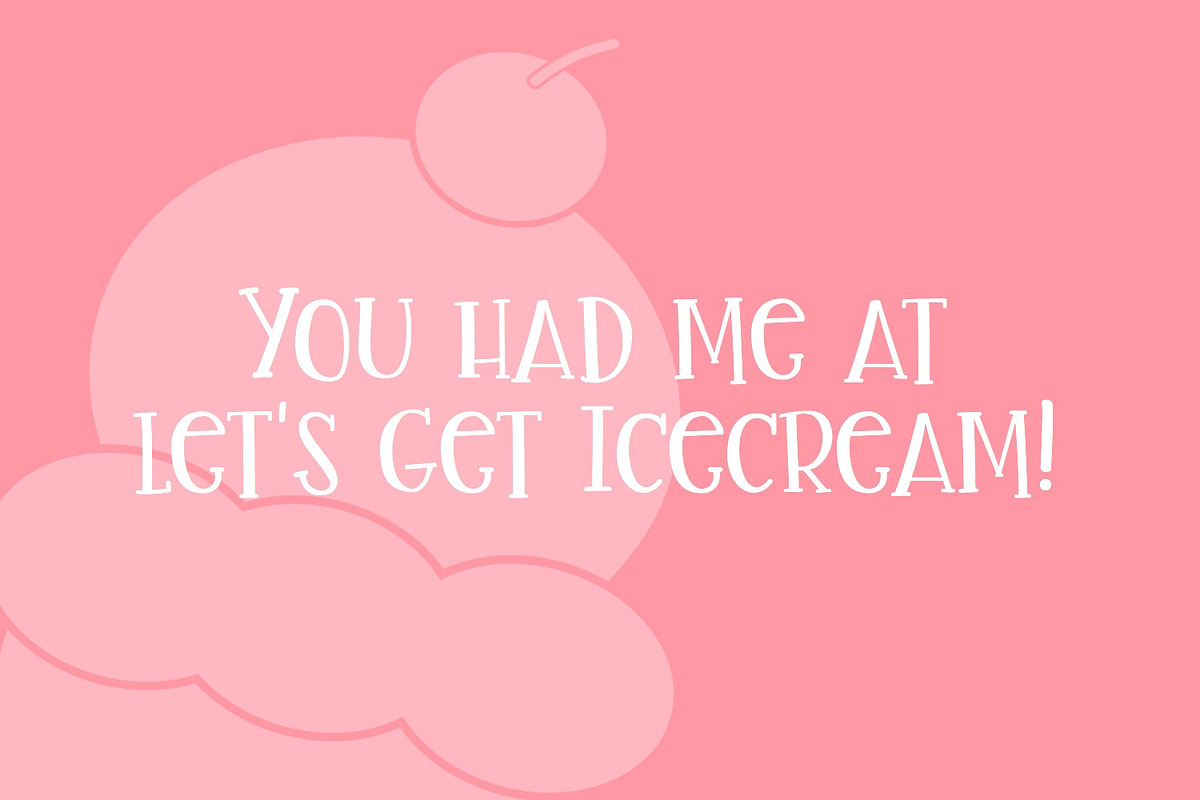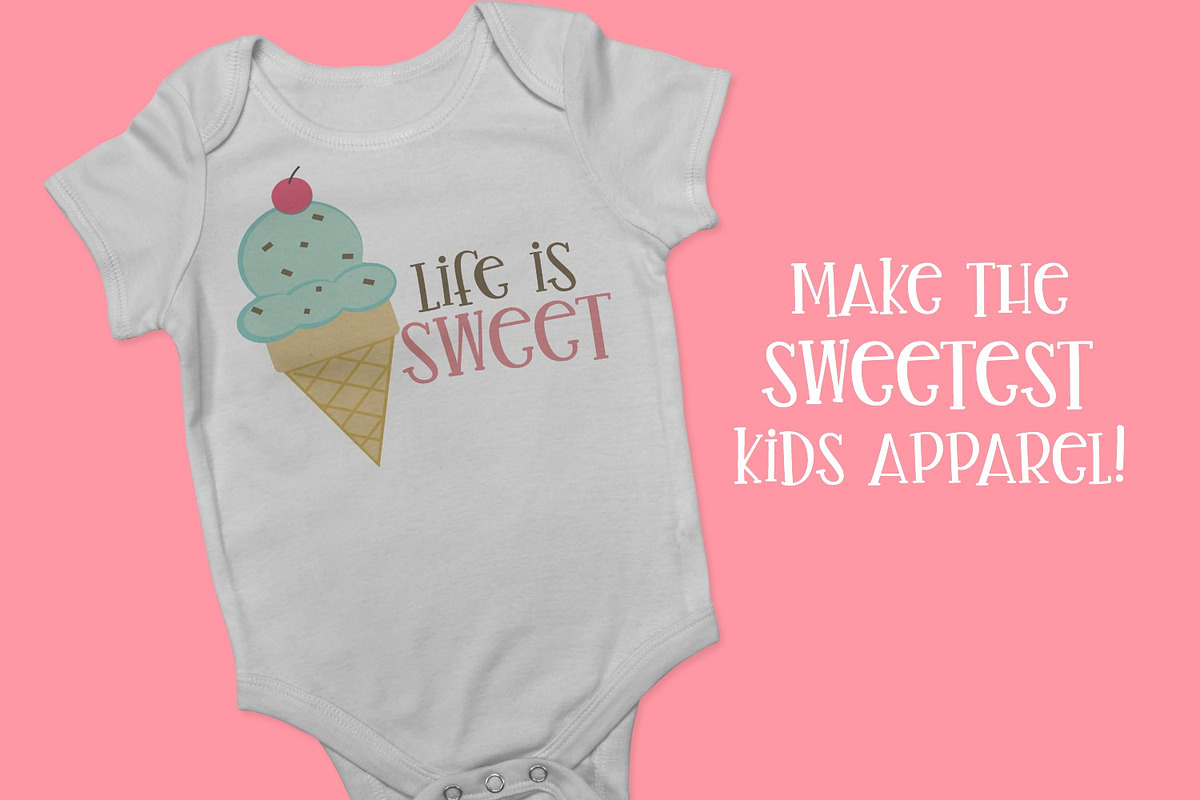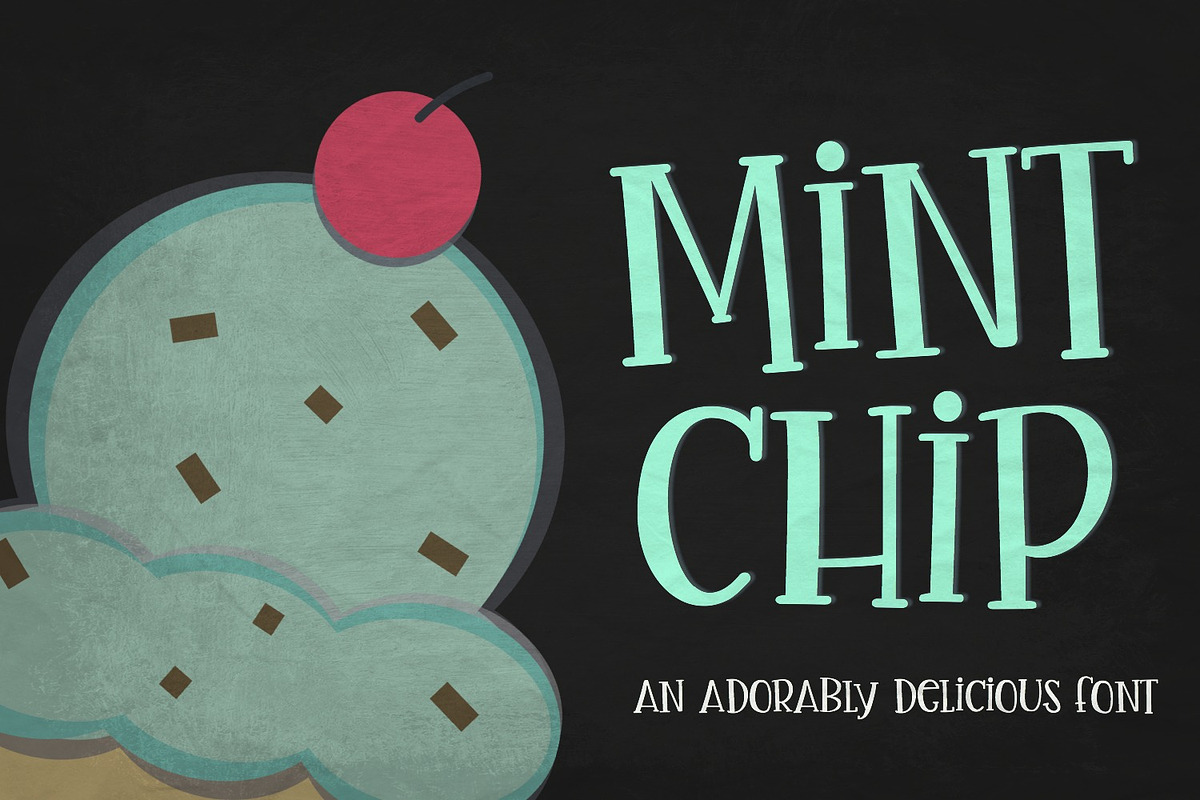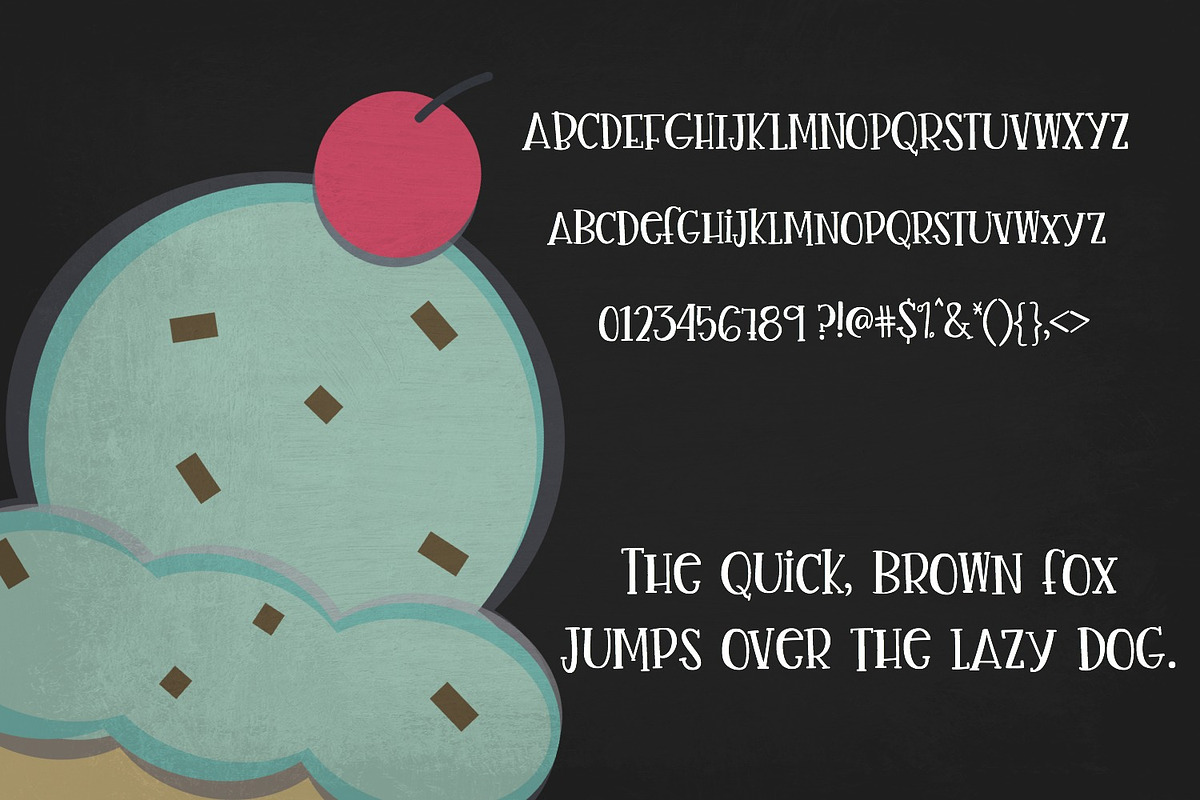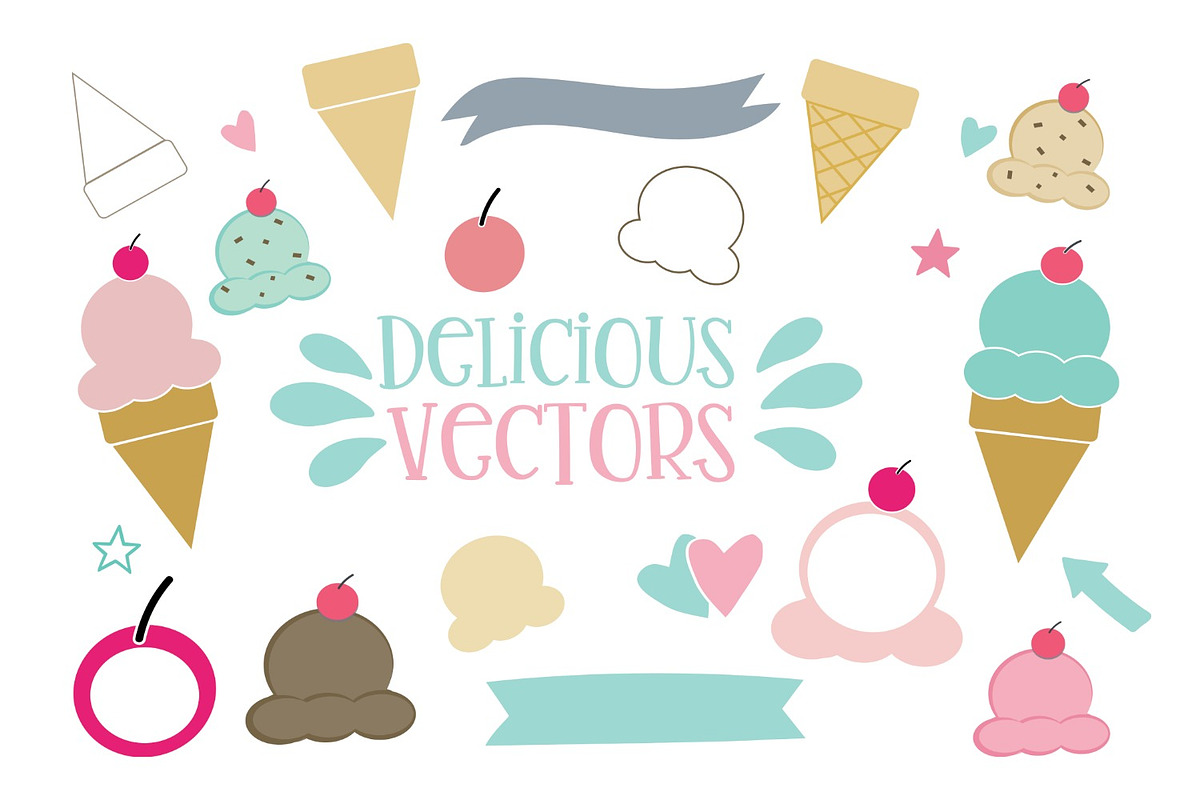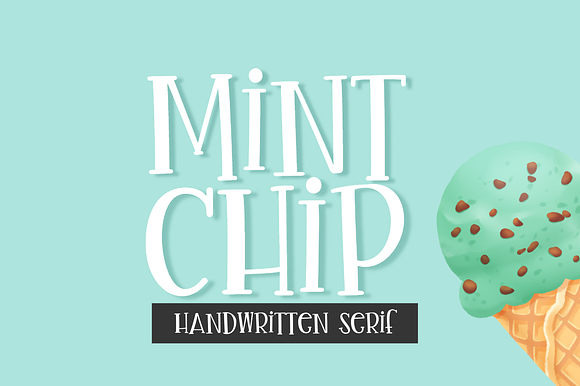
Mint Chip Font + Vectors
Mint Chip is an adorable, spunky little font that is perfect for youthful apparel, decor, logos and more! It includes a handful of tasty vectors in Ai and EPS formats.